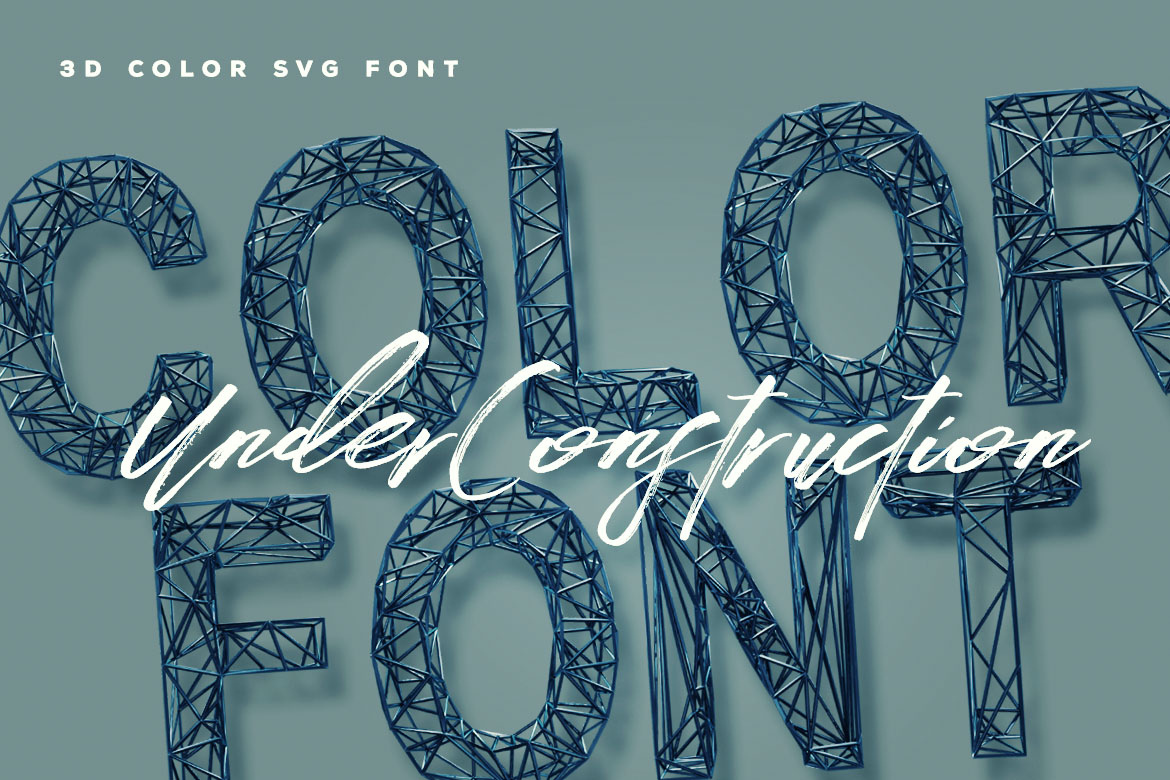
Under Construction 3D Color Font
Under Construction 3D Color Font is perfect for construction company branding, building project signage, industrial website headers, maintenance notifications, work zone graphics, development project materials, contractor marketing, and authentic construction-themed communications.
Under Construction 3D Color Font is exciting because it delivers powerful industrial impact with innovative 3D color technology that creates realistic construction textures and dimensional safety effects. Its robust character evokes strength and reliability that perfectly captures the essence of active construction sites and professional building environments.
Under Construction 3D Color Font family includes full-color 3D variations with construction-inspired effects and industrial decorative elements, providing designers with comprehensive options for creating authentic typography solutions that project construction quality and industrial professionalism.
Creative professionals consistently select Under Construction 3D Color Font for projects requiring industrial authenticity and construction visual impact. Its powerful character works magnificently in construction sites, industrial presentations, contractor marketing, and building project branding where strength demonstration and professional reliability drive client confidence. The font's 3D nature creates memorable brand experiences that communicate construction expertise and industrial capability.
The Under Construction 3D Color Font download package includes full-color variations, construction textures, and industrial symbols that enhance its building appeal and design versatility. This comprehensive collection ensures professional results in construction-themed design projects requiring authentic typography character. The font performs exceptionally in digital applications where its 3D color effects and construction details create significant visual impact and industrial distinction.
Design teams appreciate Under Construction 3D Color Font's ability to create instant brand recognition through its distinctive construction character and powerful industrial appeal. Its authentic styling transcends traditional construction typography while maintaining the strength required for building market positioning, making it an essential tool for organizations seeking to establish reliable connections through superior construction typography and exceptional industrial communication.